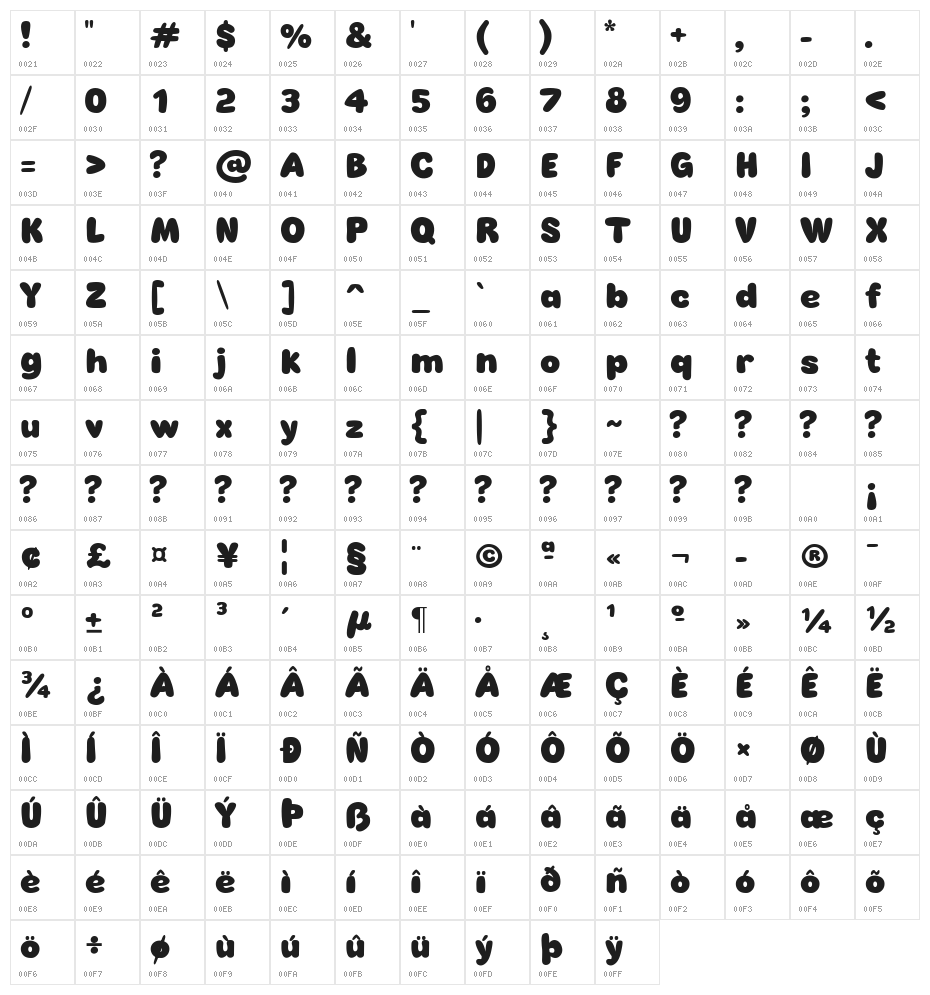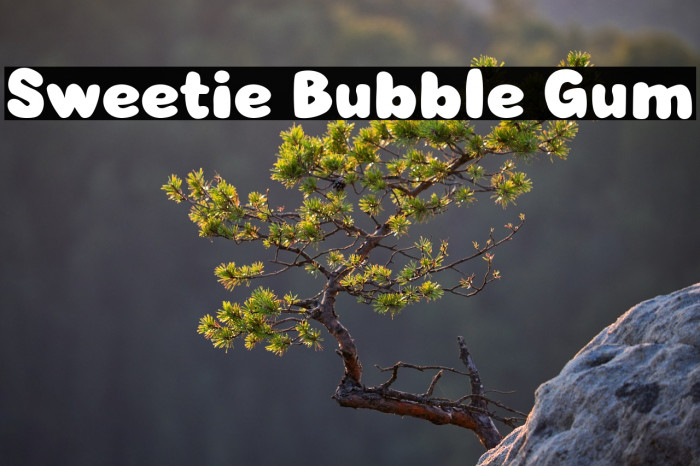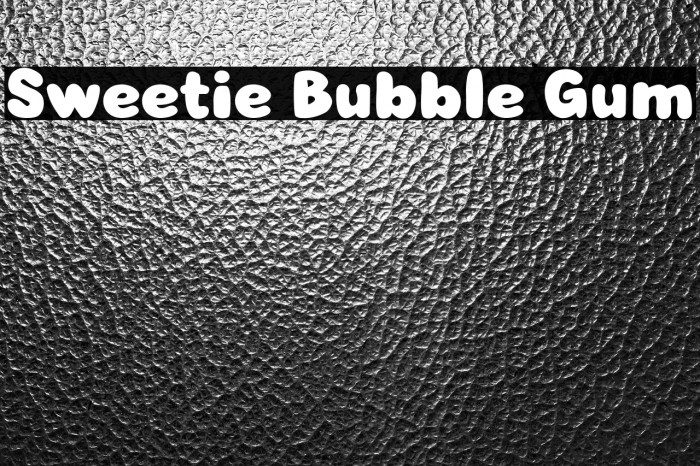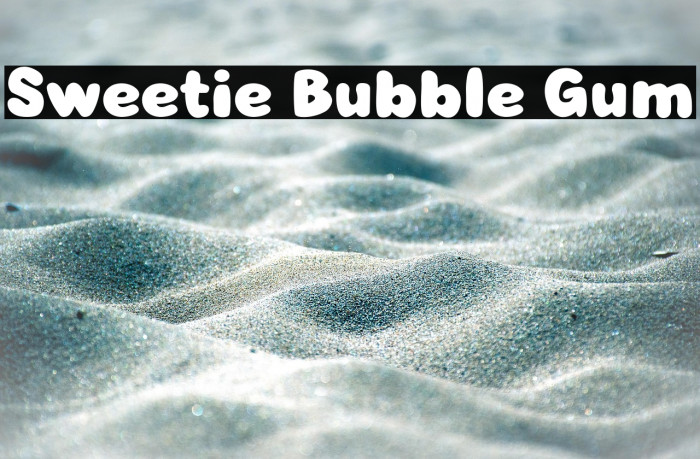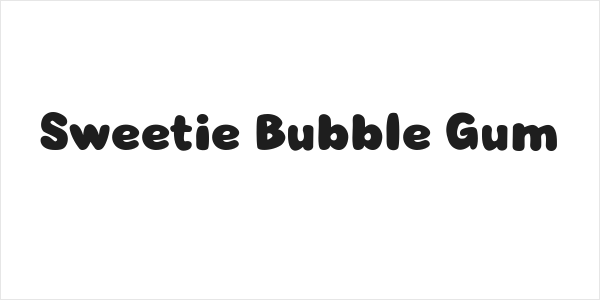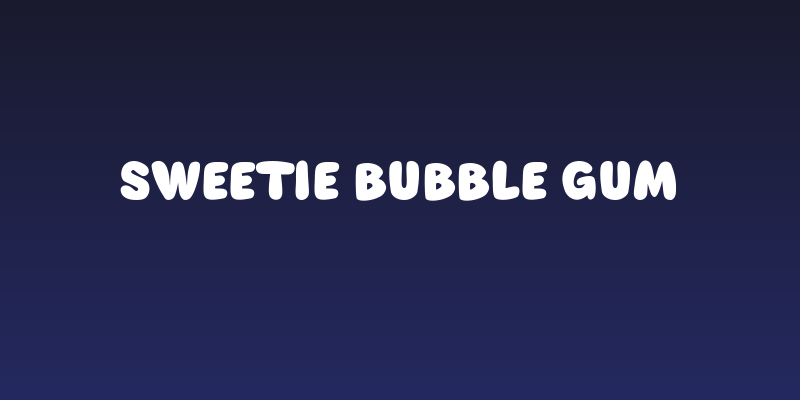
Sweetie Bubble Gum Font
Sweetie Bubble Gum Description
This playful and bold font features rounded, bubble-like characters that convey a sense of fun and whimsy. The letters are thick and have a soft, inflated appearance, making them stand out with a friendly and approachable vibe. The consistent stroke width throughout the characters adds to its cohesive look, while the rounded edges soften the overall feel. This font is perfect for projects that aim to capture a youthful, energetic, and informal tone. Its unique style makes it suitable for eye-catching designs where personality is key.
| Overall Style | Playful, Fun, Whimsical |
| Proposed Projects | Ideal for children's books, playful branding, party invitations, and fun social media graphics. |